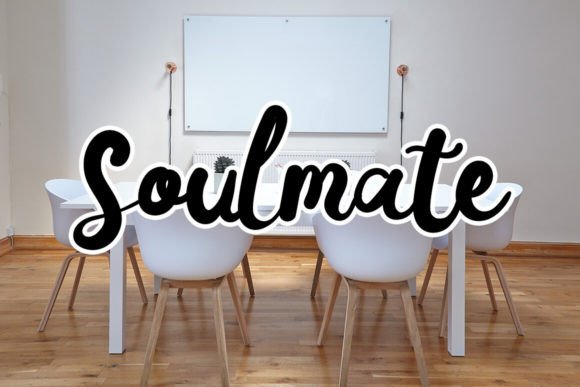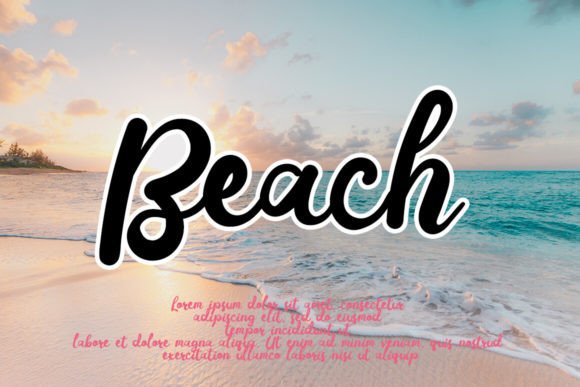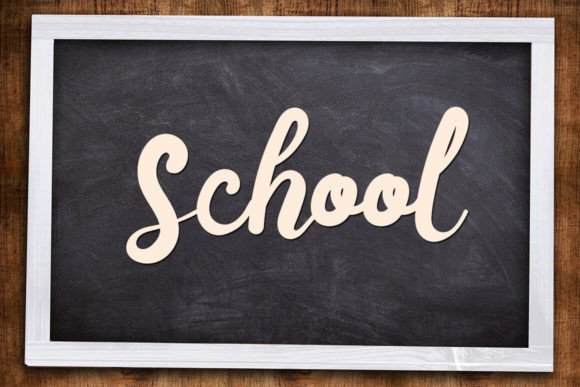
Diamond Font: Elevate Your Design Aesthetics with Elegance and Charm
Are you tired of using the same old fonts for your creative projects? Do you want to add a touch of sophistication and elegance to your designs? Look no further than the Diamond Font, a stunning typeface that is sure to take your work to the next level. With its pristine and sweet design, this font is perfect for designers and crafters looking to add a little extra sparkle to their projects.
What is Diamond Font?
Diamond Font is a meticulously constructed typeface that exudes freshness and simple sophistication. Its elegant design makes it perfect for a wide range of creative projects, from formal to casual. Whether you’re working on a business logo, brochure, or social media graphics, this font is guaranteed to add an exceptionally delightful sparkle to your design aesthetics.
Key Features of Diamond Font
- Elegant Design: Diamond Font boasts a pristine and sweet design that is sure to elevate your creative projects.
- Versatility: This font is perfect for a wide range of design projects, from formal to casual.
- Sophistication: Diamond Font emits freshness and simple sophistication, making it perfect for businesses looking to add a touch of elegance to their brand.
- Easy to Use: With its clean and simple design, Diamond Font is easy to read and use, making it perfect for designers and crafters of all levels.
Benefits of Using Diamond Font
So, why should you choose Diamond Font for your creative projects? Here are just a few benefits of using this stunning typeface:
- Enhance Your Design Aesthetics: Diamond Font is guaranteed to add an exceptionally delightful sparkle to your design aesthetics, taking your work to the next level.
- Stand Out from the Crowd: With its unique and elegant design, Diamond Font is sure to make your designs stand out from the crowd.
- Simplify Your Design Process: This font is easy to use and read, making it perfect for designers and crafters looking to simplify their design process.
- Perfect for Businesses: Diamond Font is perfect for businesses looking to add a touch of elegance and sophistication to their brand.
How to Use Diamond Font
Using Diamond Font is easy and straightforward. Here are a few tips to get you started:
- Choose the Right Size: Choose a size that is easy to read and suits your design needs.
- Pair it with Other Fonts: Diamond Font pairs well with other fonts, so feel free to experiment with different combinations.
- Use it for Headings and Titles: This font is perfect for headings and titles, adding a touch of elegance and sophistication to your designs.
In conclusion, Diamond Font is a stunning typeface that is sure to elevate your creative projects. With its elegant design, versatility, and ease of use, this font is perfect for designers and crafters looking to add a touch of sophistication and elegance to their work. Whether you’re working on a business logo, brochure, or social media graphics, Diamond Font is guaranteed to add an exceptionally delightful sparkle to your design aesthetics. So why wait? Experience the joy of simplifying your design process with this stunning font, and bring the magic of creativity to life.
Your Business Deserves to Shine
Your business deserves to stand out from the crowd, and Diamond Font is the perfect way to do just that. With its innovative design and simple elegance, this font promises to bring a touch of joy and sophistication to your brand. So why settle for ordinary fonts when you can have a font that shines? Choose Diamond Font today and take your business to the next level.
Experience the Magic of Diamond Font